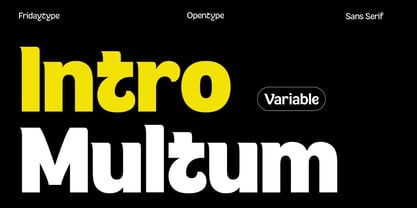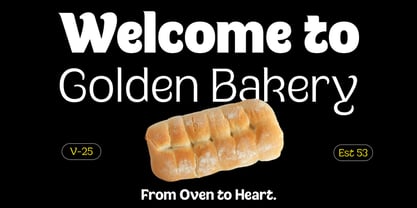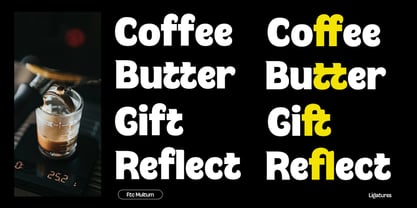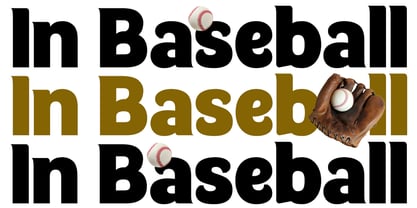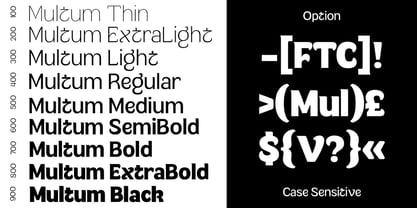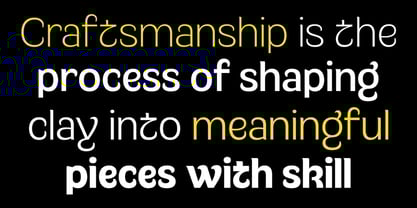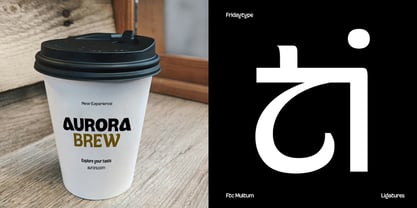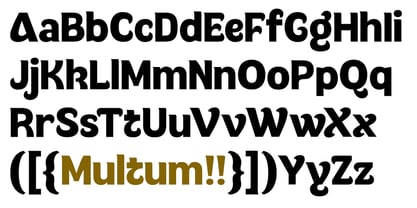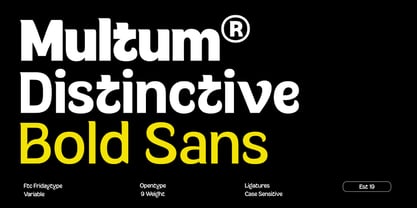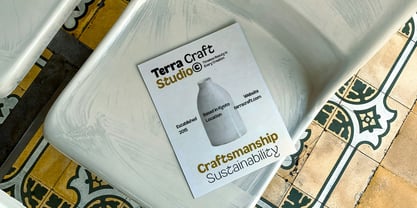
Multum
by Fridaytype
The Multum Font Family was designed by Farida Kurniawan and published by Fridaytype. Multum contains 9 styles and family package options. More about this family
Multum is a distinctive sans-serif font that brings a modern twist to classic typography. Its defining feature is the sharp, angular serifs that add a bold and dynamic character to each letterform. Clean and versatile, Multum strikes the perfect balance between elegance and contemporary design, making it ideal for branding, editorial design, and digital projects. Whether used for headlines or body text, Multum ensures your content stands out with its unique edge and clarity.